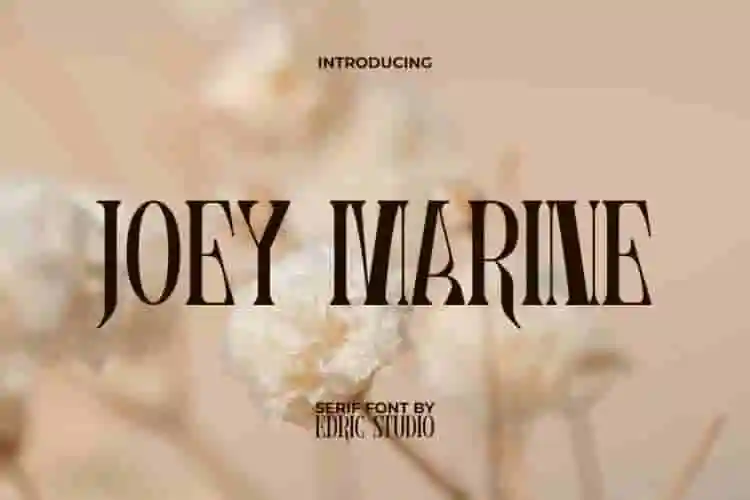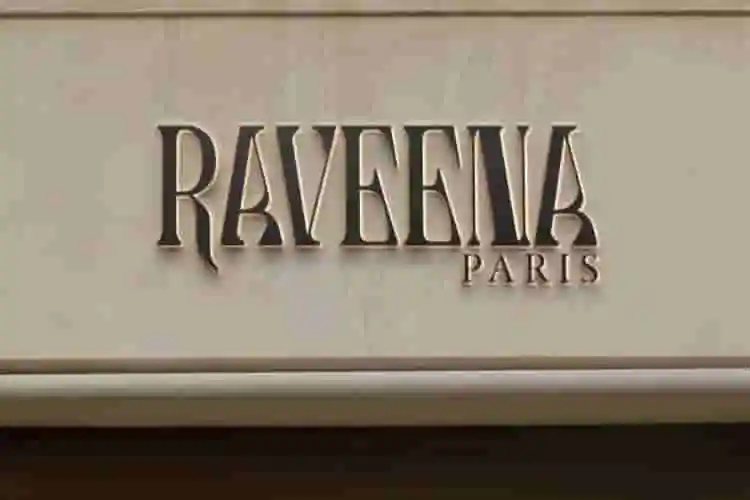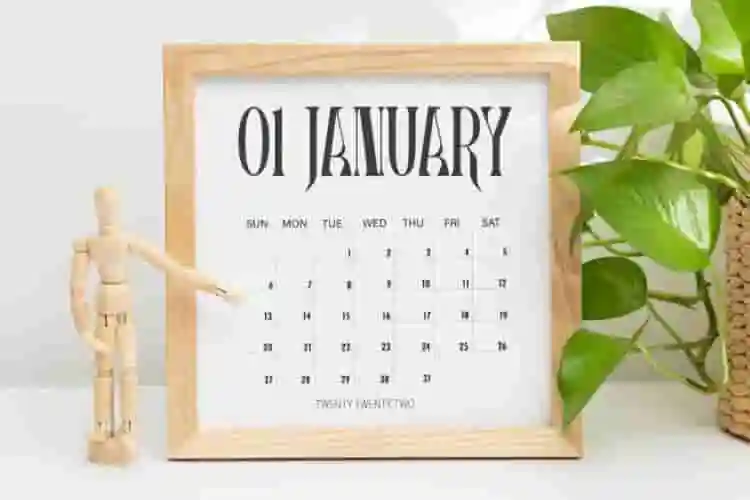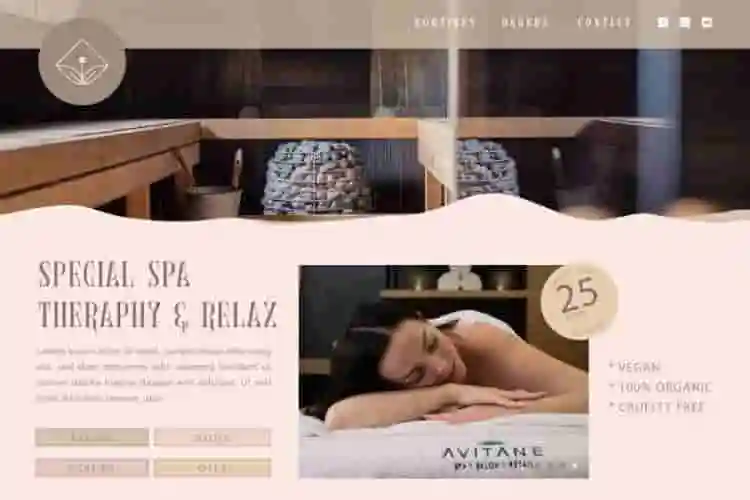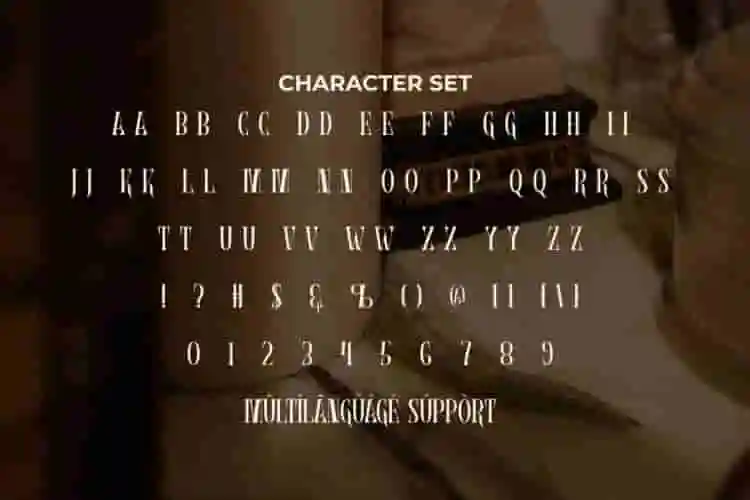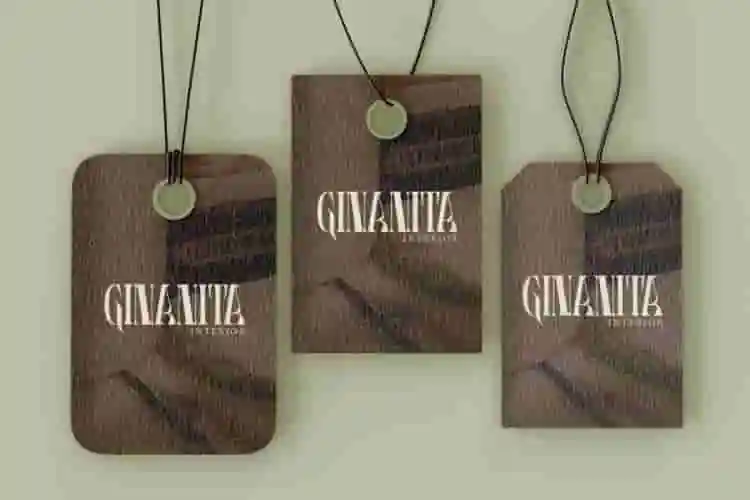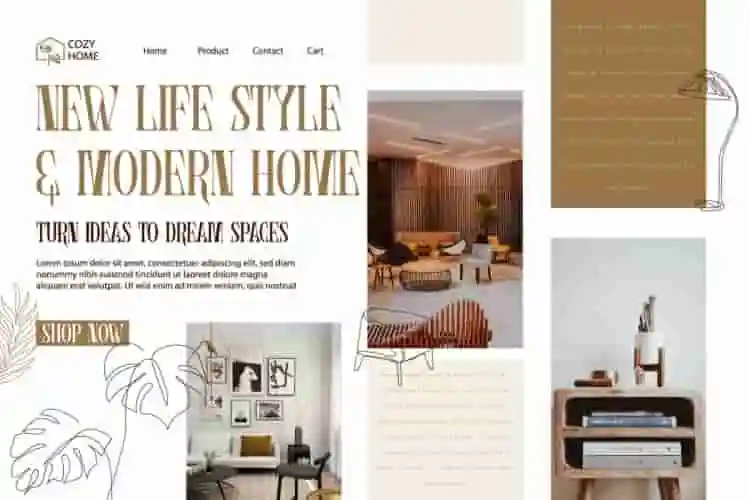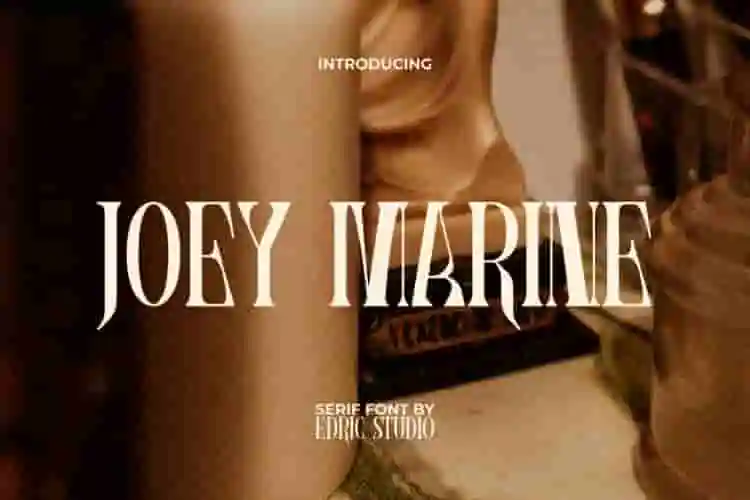
Joey Marine Font is a classy elegant serif with beautiful shapes for each letter. Inspired by fashion magazine typography with a blend of modern classics with a cozy vintage feel. This font will be perfect for billboard, blogs, branding, brochure, business card, cover, flyer, hat stamp, heading, label, logos, magazine cover, monograms, poster, product packaging, screen print, signage, stickers, t-shirts, title, watermarks, website, and many more.
Introducing Joey Marine Display Font – a bold, adventurous, and modern typeface inspired by the spirit of the sea and maritime strength. With its strong lines, clean edges, and striking display style, Joey Marine is designed to give your projects a fearless, confident, and professional identity. Perfect for logos, posters, product packaging, apparel, and social media graphics, this font guarantees bold and lasting impact.
Joey Marine Display Font is crafted for versatility and readability, making it suitable for branding, advertising campaigns, gaming visuals, sports promotions, and event materials. Its distinctive style reflects both strength and creativity, giving your designs a unique voice that captures attention instantly. Whether you’re building nautical-inspired projects, bold lifestyle branding, or modern marketing visuals, Joey Marine is a perfect fit.
Joey Marine Display Font comes with a complete set of ALL CAPS for basic characters Uppercase and Lowercase, Numbers, Punctuation and Symbols. It will bring you a touch of class that is unique and original. Immediately have this font collection to support the identity of any business, such as ads, apparel, architect, boutique, clothing brand, cafeteria, content creator, fashion, film, furniture, game, graphic design, handicraft, interior design, merchandise, printing, publishing, spa salon, stationery store, travel & vacation agency, web designer, etc.